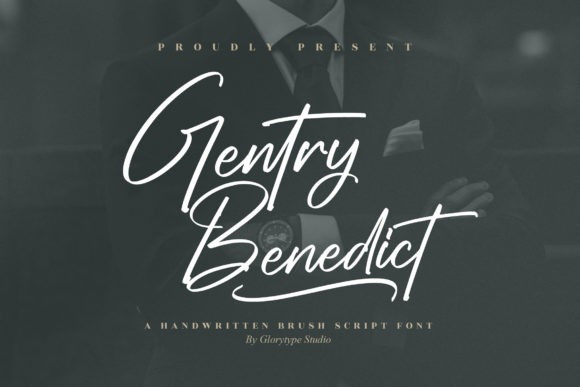
Gentry Benedict Font
Gentry Benedict Font is a dazzling script font. It is neatly crafted and highly detailed. This font is PUA encoded which means you can access all of the amazing glyphs and ligatures with ease!